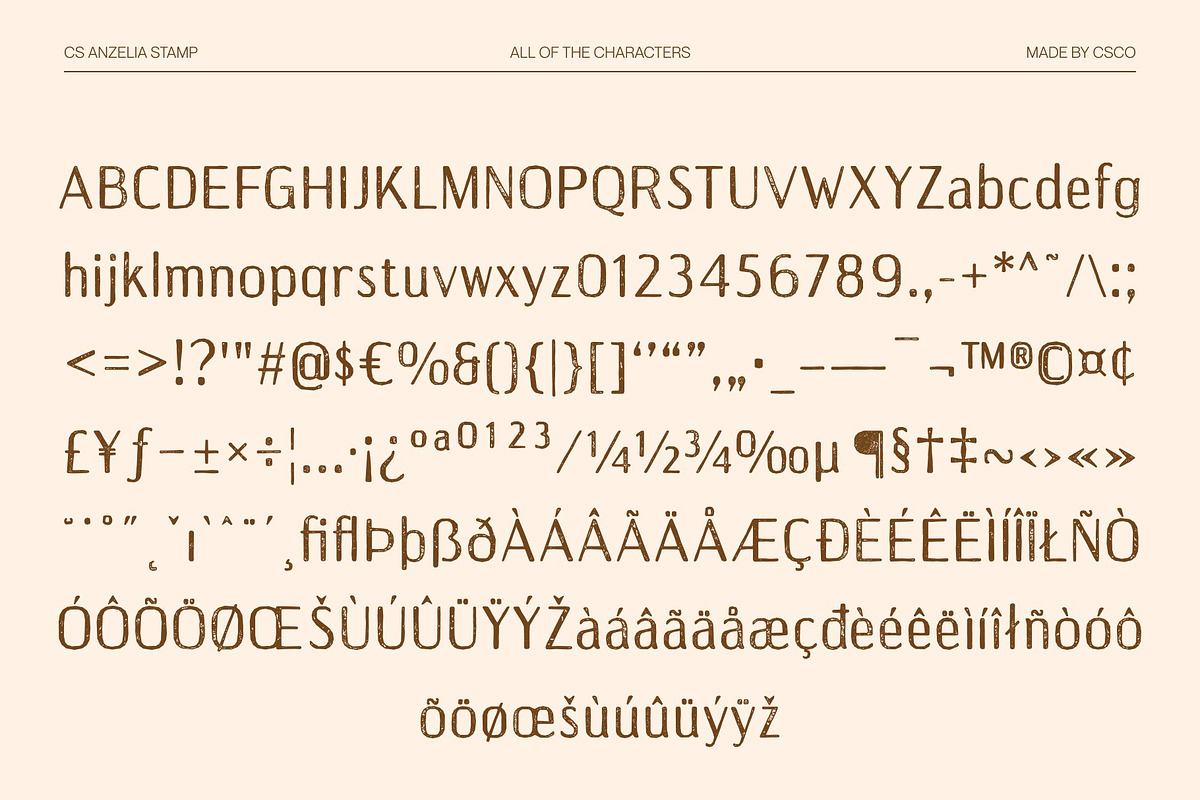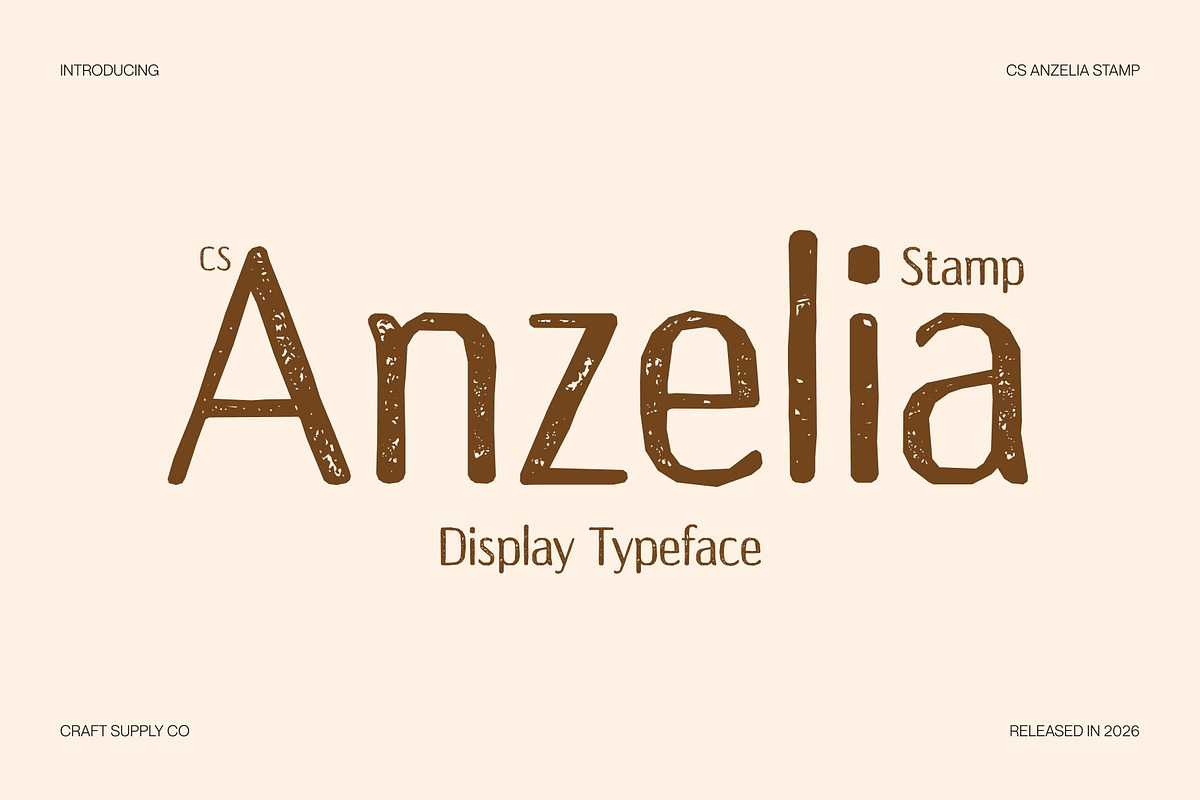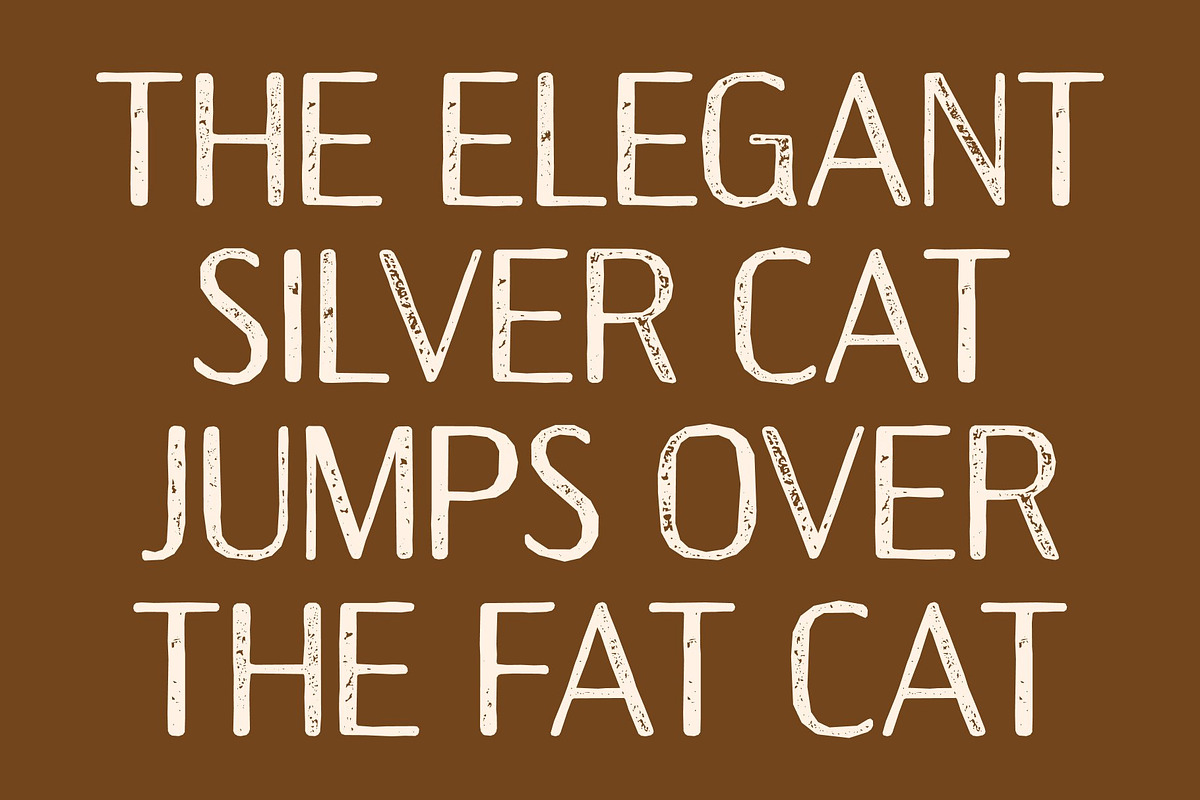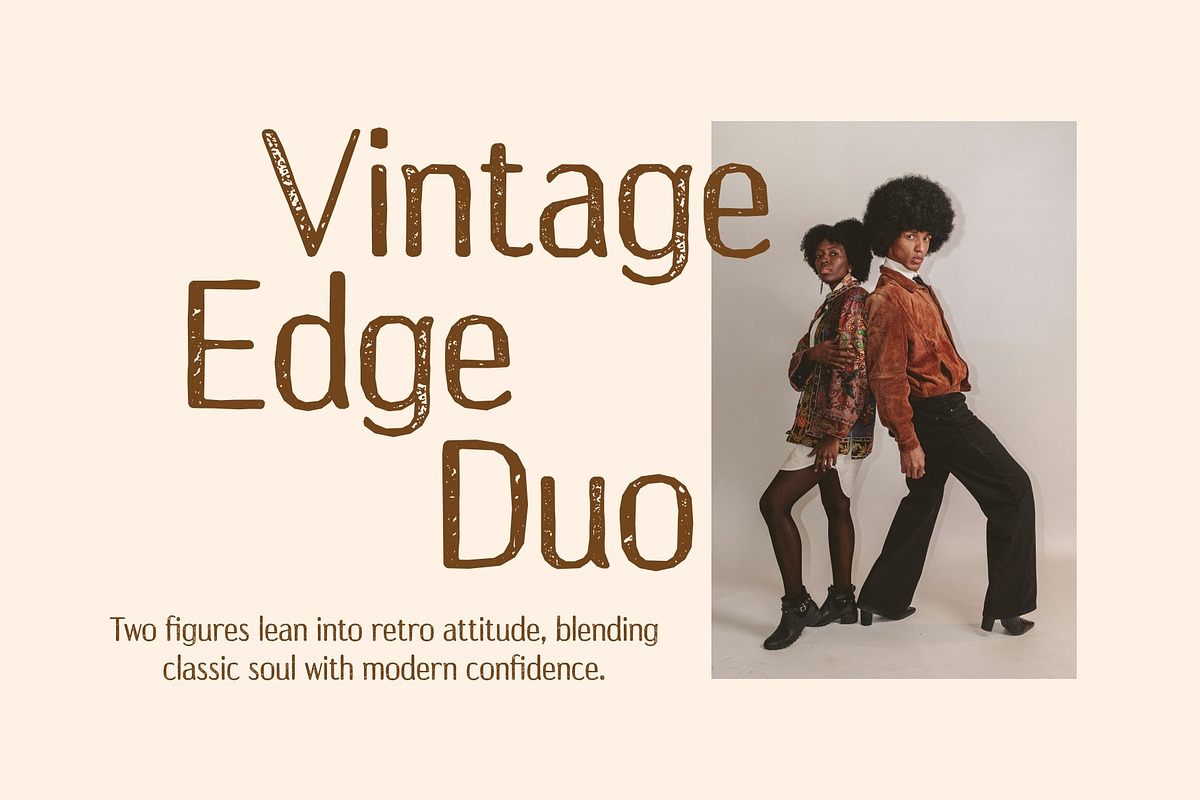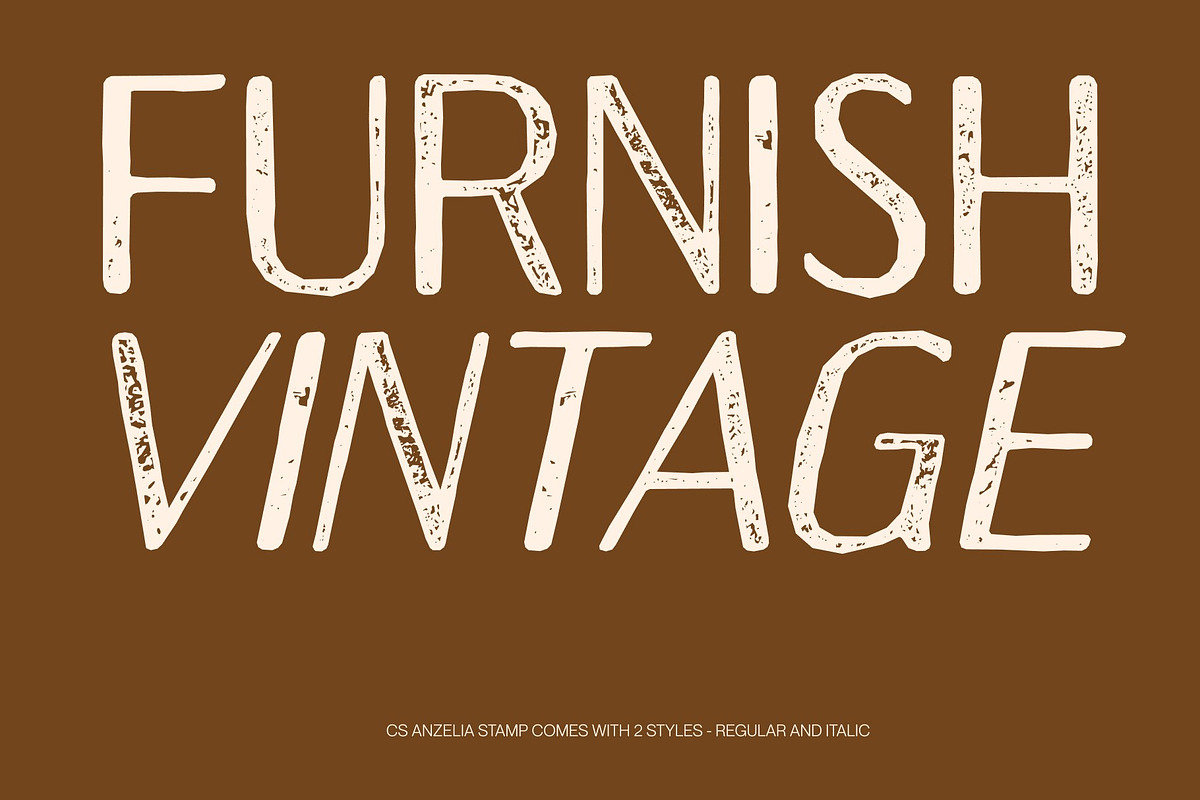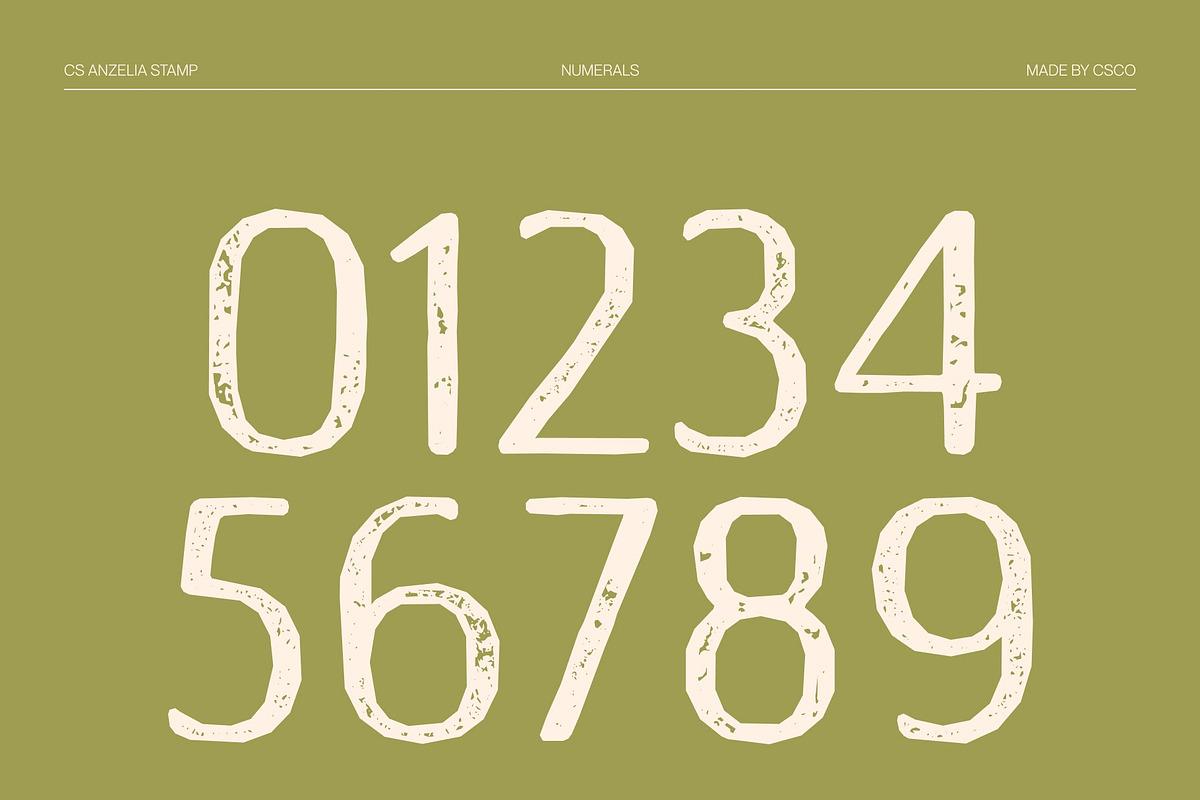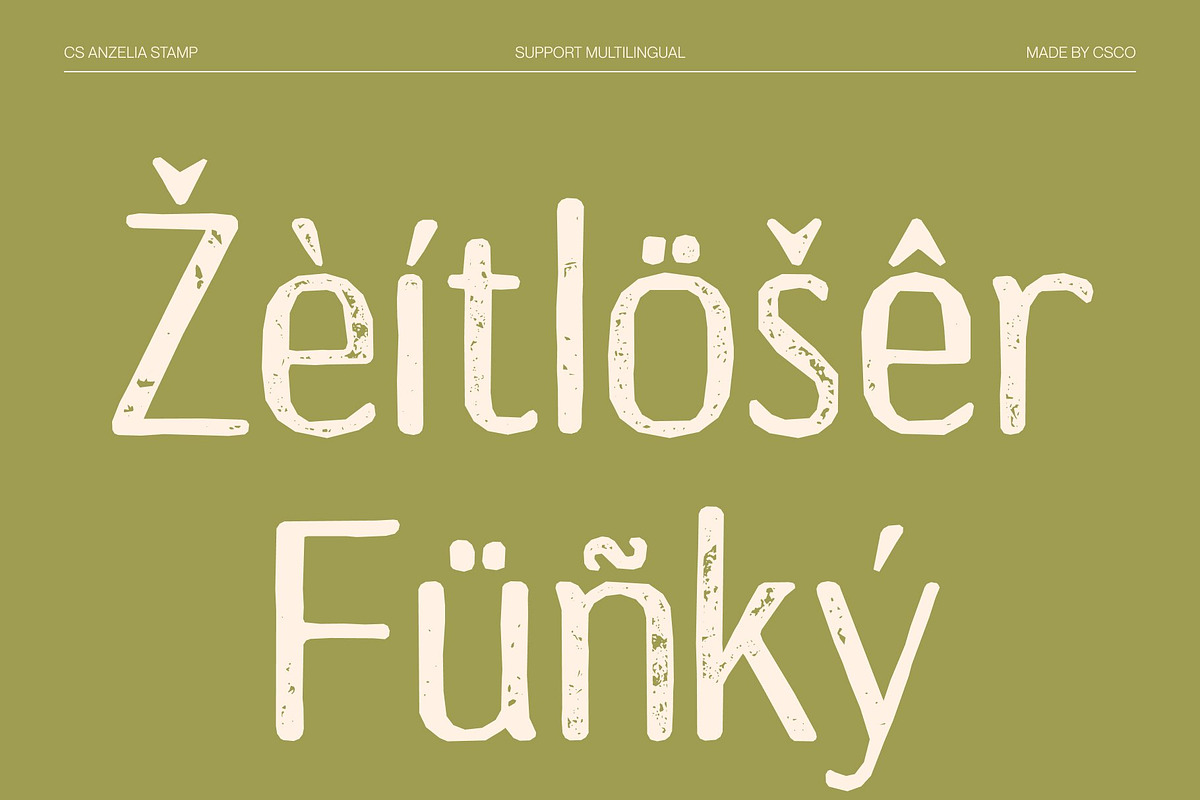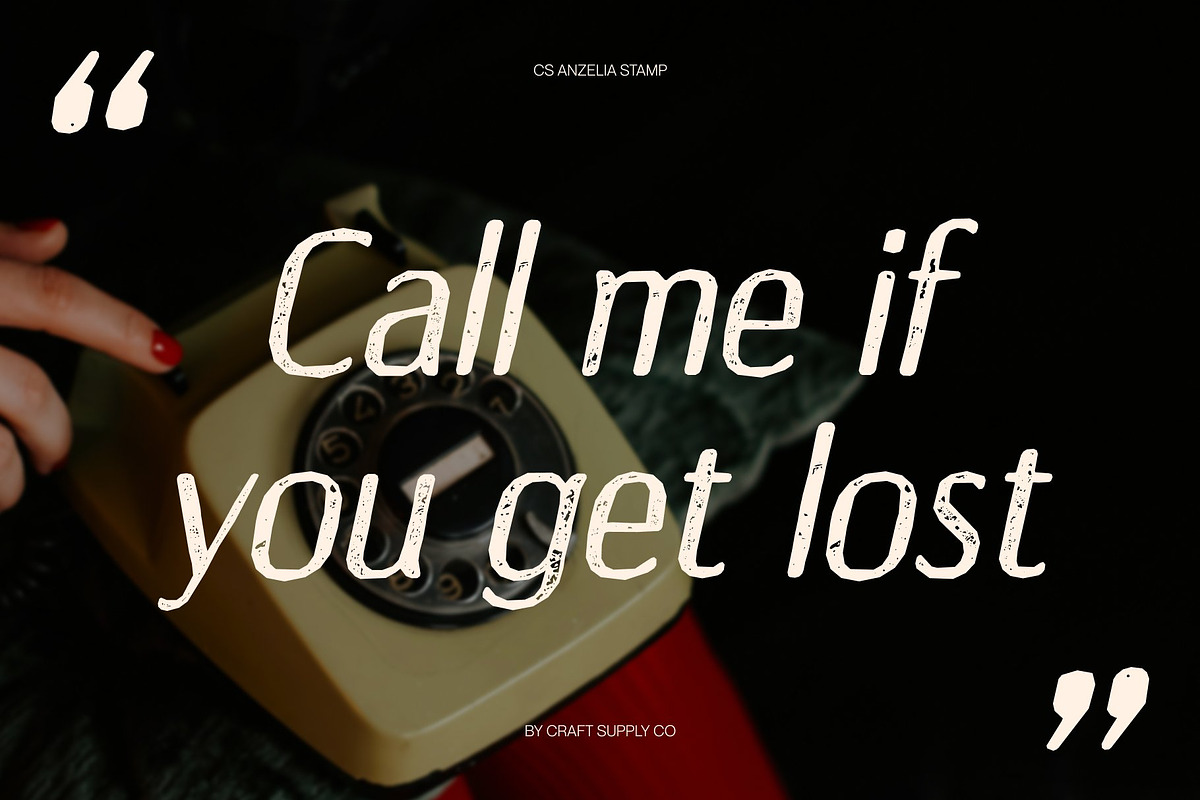
CS Anzelia Stamp
CS Anzelia Stamp – Modern Sans Serif with Vintage Character and Textured Appeal
Sleek Geometry with a Handcrafted Twist This transforms the clean, contemporary sans serif into a tactile display font with subtle distressed textures, slightly worn edges, and vintage ink impressions. The modern geometric structure remains crisp, while the stamp effect introduces a handcrafted, nostalgic aesthetic.
Readable Yet Expressive Even with its textured, old-style detailing, this font maintains excellent readability. Its bold, structured letterforms balance clarity with artistic personality, making every headline, logo, or poster visually engaging and distinct.
Perfect for Modern Designs with Retro Flair Ideal for branding, packaging, editorial layouts, or promotional visuals, this version blends contemporary professionalism with a retro, artisanal vibe. The combination of sleek geometry and vintage stamp texture ensures your designs feel both modern and timelessly creative.
Versatile for Bold, Memorable Projects Whether used in digital interfaces, print campaigns, or event materials, this font adds character and energy, making your typography stand out with a confident, artistic, and nostalgic presence.
CS Anzelia Stamp Regular
CS Anzelia Stamp Italic